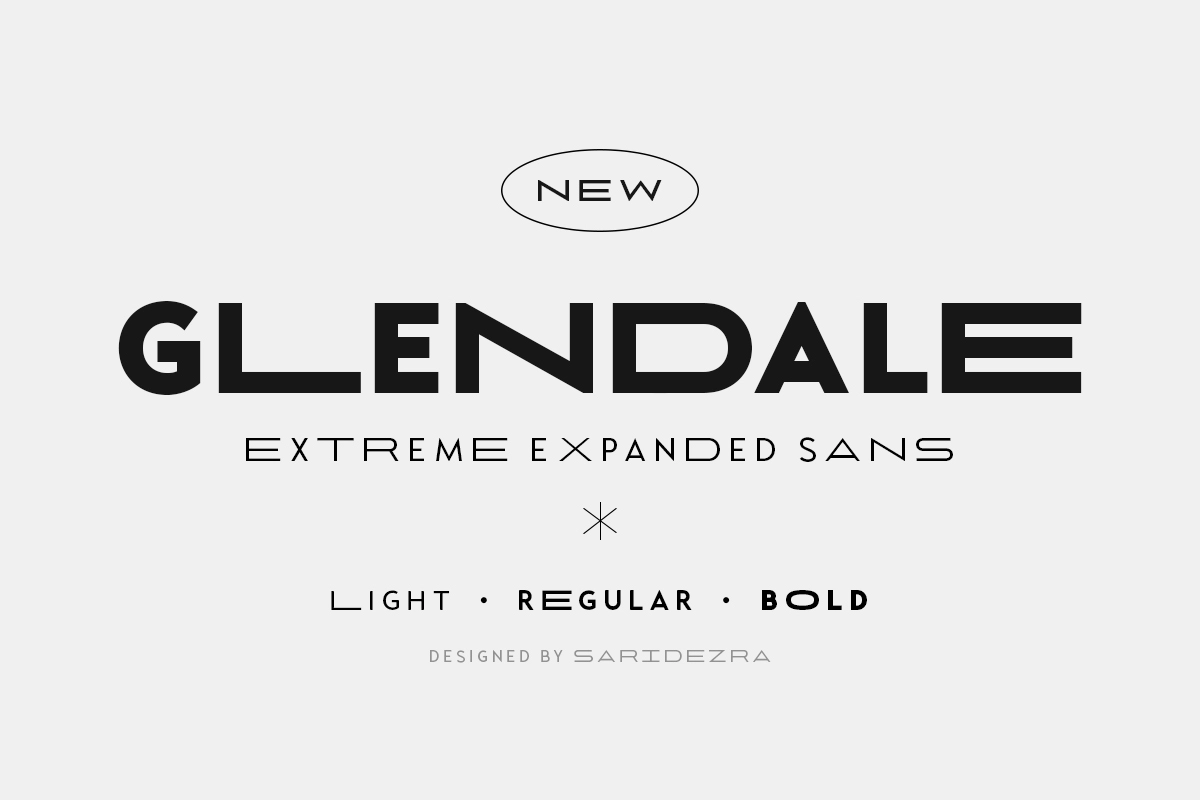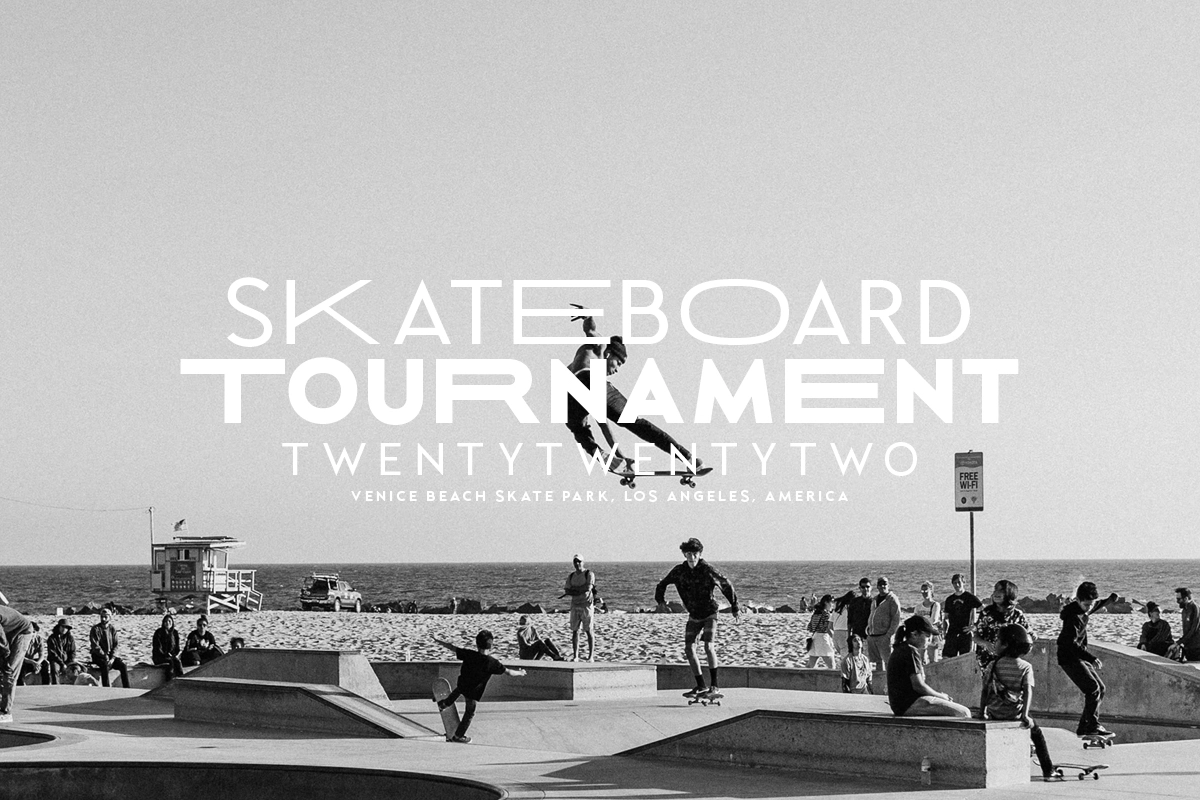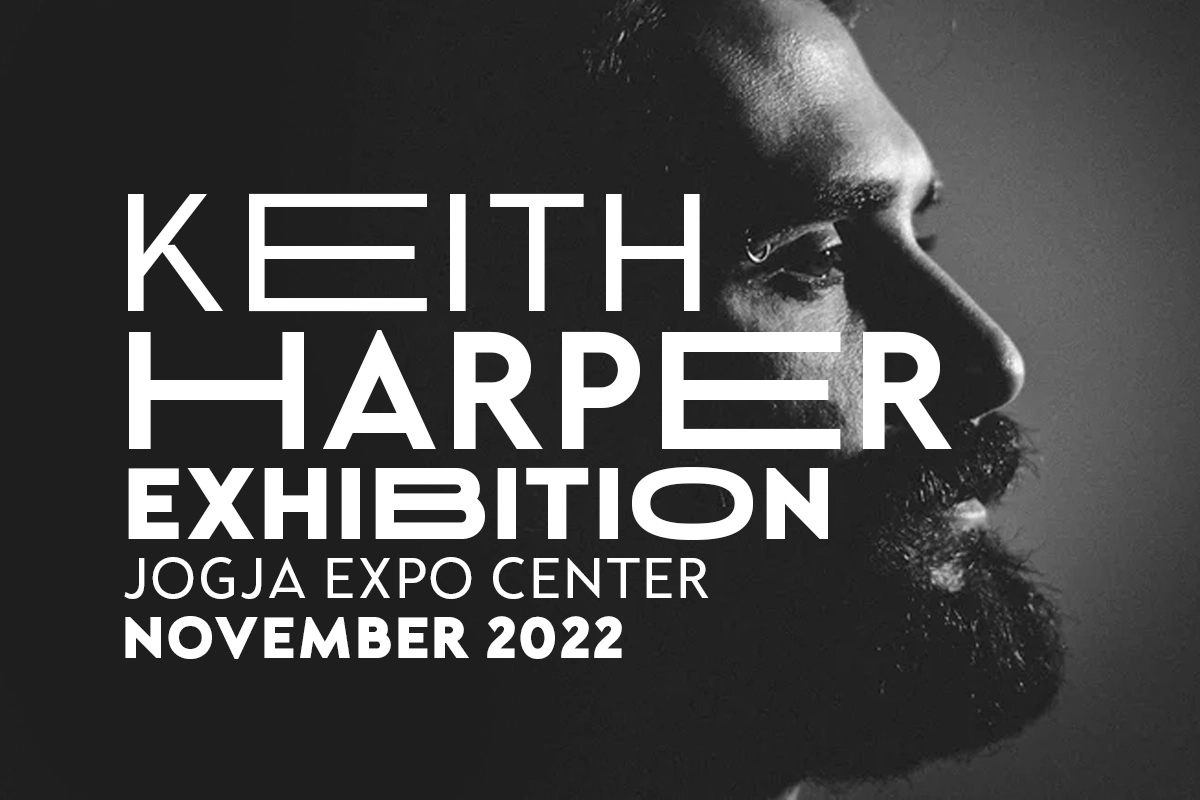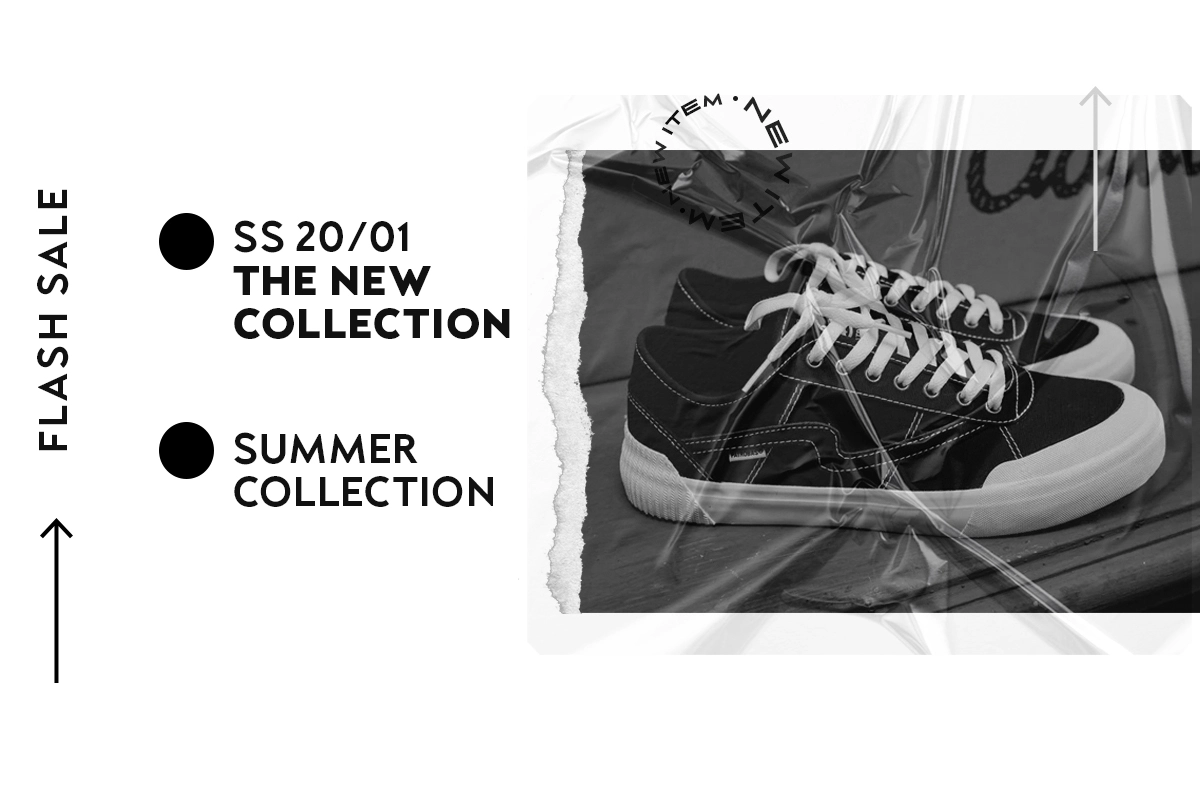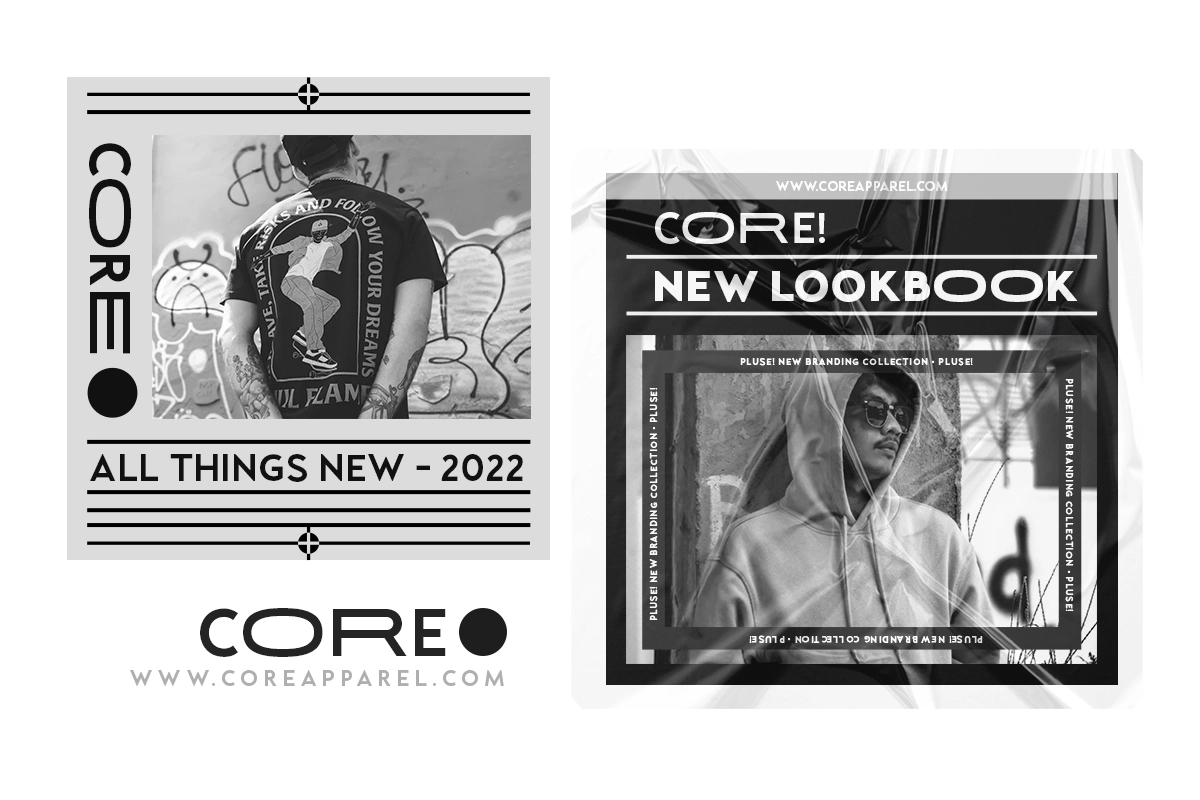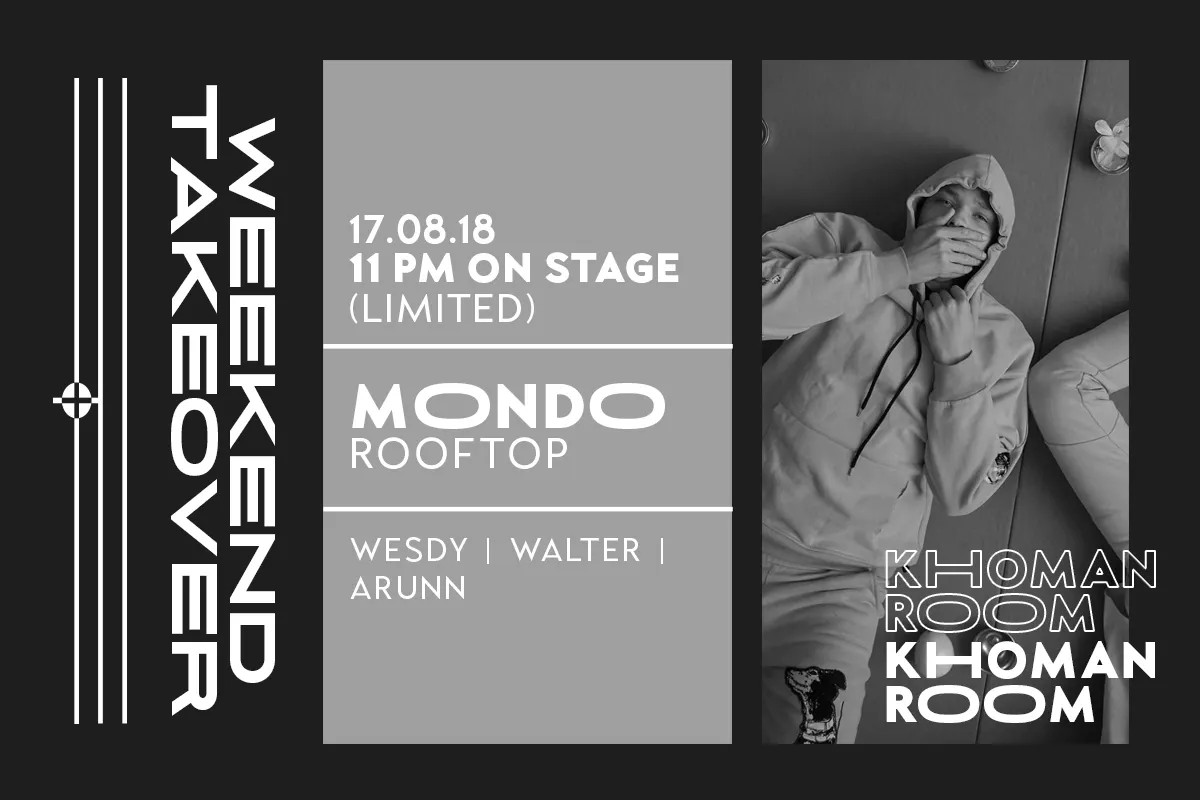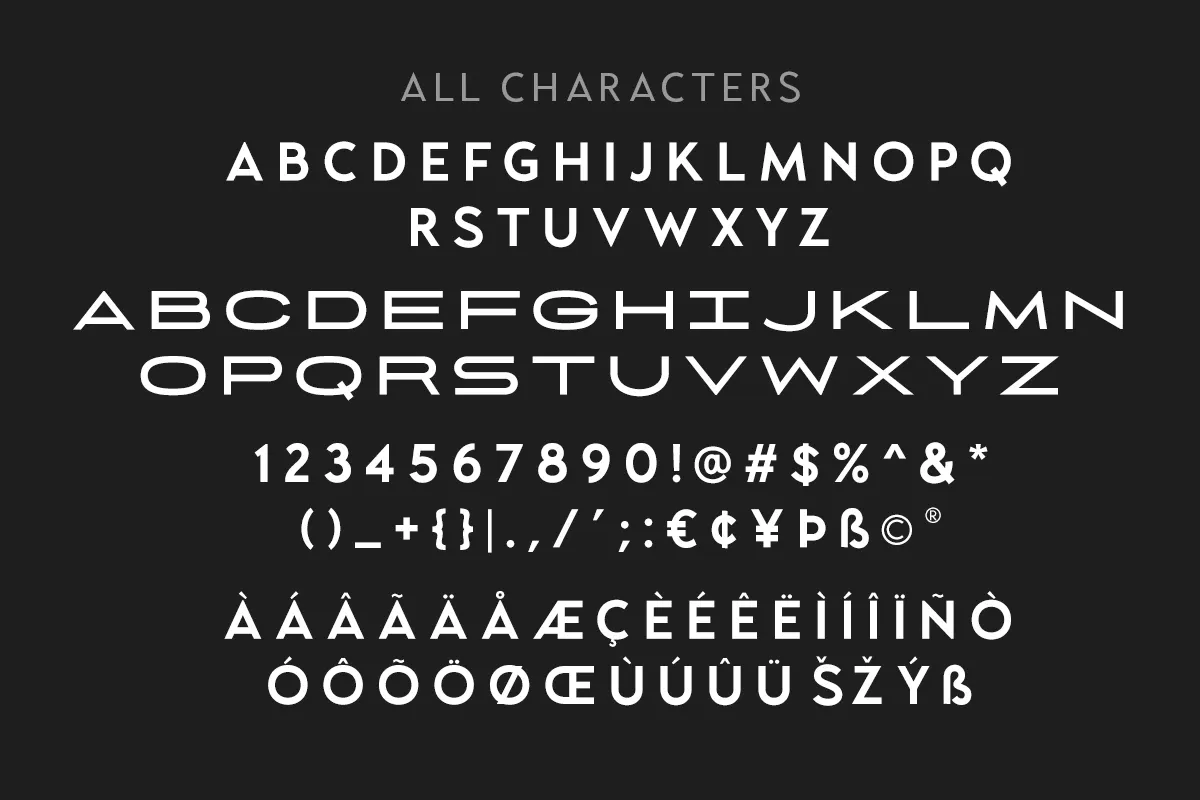
Glendale - Extreme Expanded Sans
Glendale is a basic sans font with unique lowercase form. With expanded lowercase, this font will standout and make a great choice for your next project! The important things is, you can access the special features with any software. You can use this font for any designs. Cool for logos and powerful for posters! With light, regular, and bold version, you can make your headline text more standout! This font also support Multi Language.